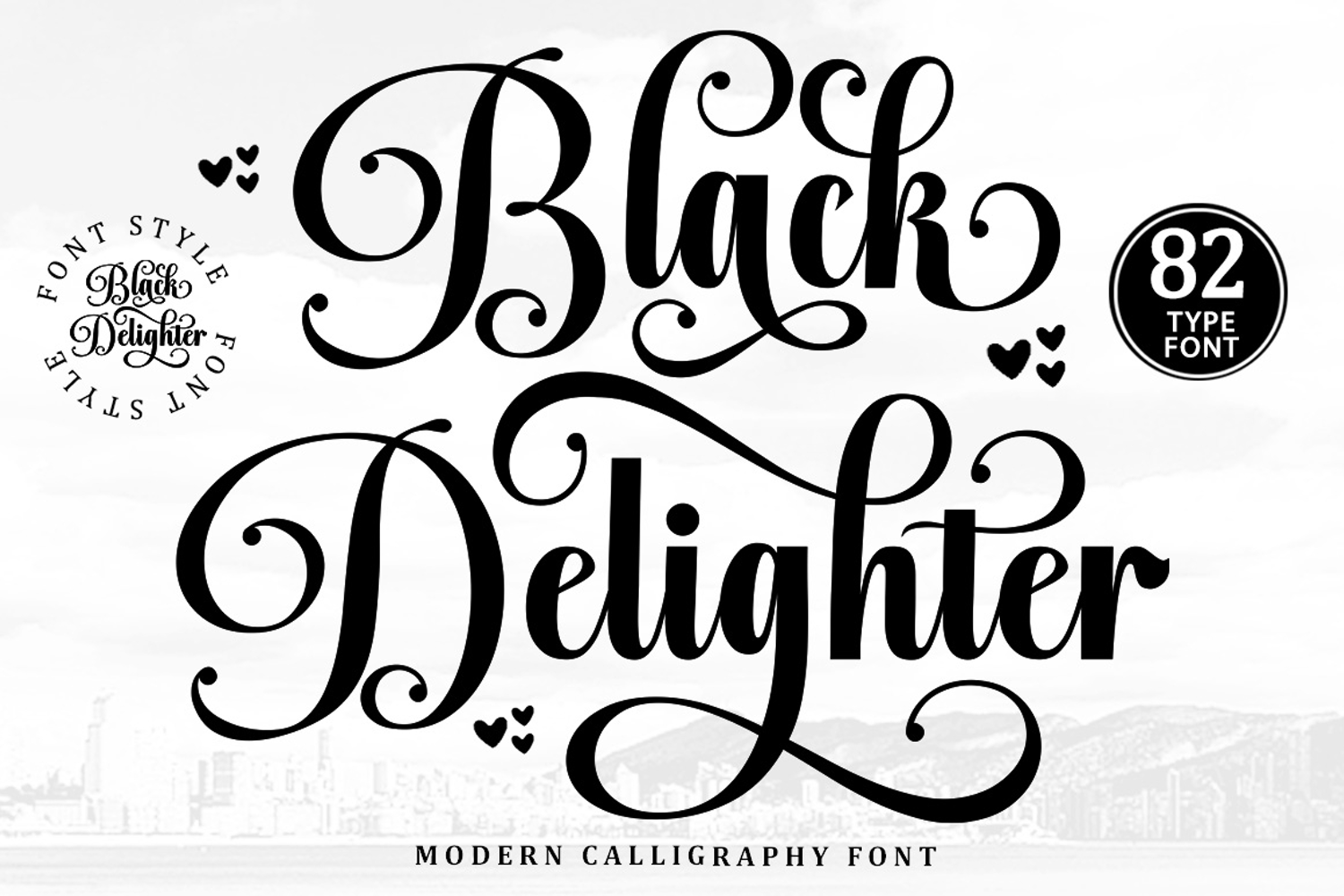
Black Delighter - Family Font In 82 Type
Black Delighter Family Script is a versatile collection of 82 beautifully designed typefaces with a modern and elegant touch, showcasing a touch of elegance.
Black Delighter font is sleek, clean, feminine, sensual, glamorous, simple, and highly legible thanks to its many beautiful letter connections. I also offer a number of stylistic alternatives for some of the letters. The classic style is perfect for use in a variety of formal applications such as invitations, labels, restaurant menus, logos, fashion, makeup, stationery, novels, magazines, books, greeting/wedding cards, packaging, labels, or any type of advertising use.
Numbers